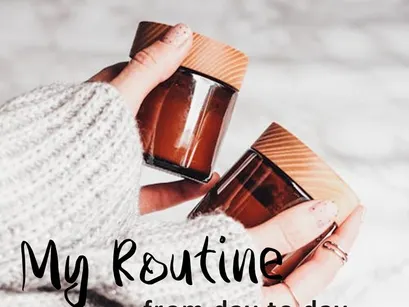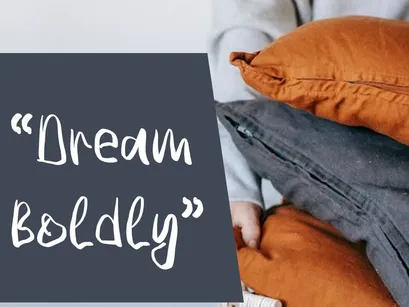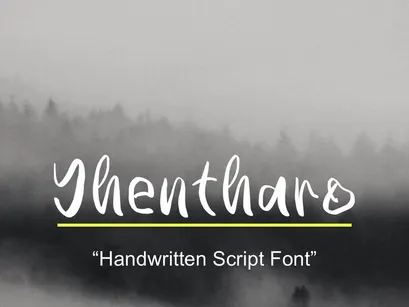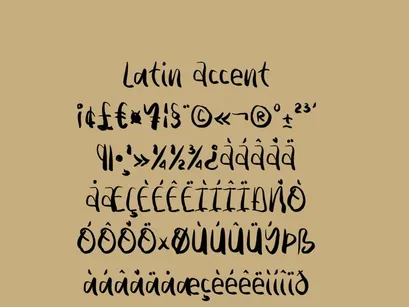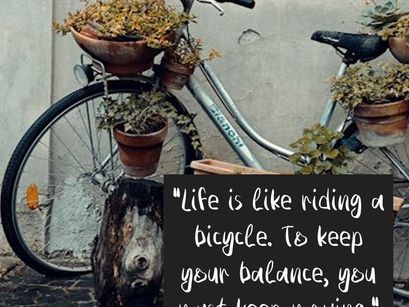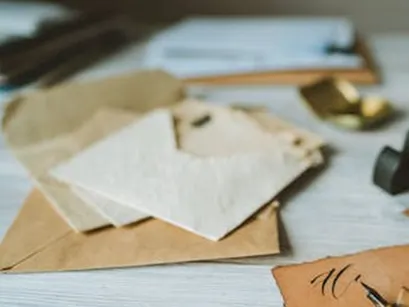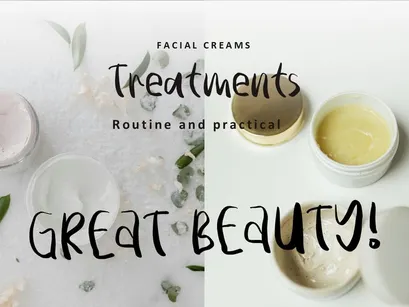
Yhentharo — Handwritten Font
Yhentharo is a modern handwritten font with expressive and natural strokes.
Designed for titles, inspirational quotes, and creative projects that aim to convey emotion and authenticity.
• Full coverage of Latin characters and accents.
Perfect for planners, handcrafted branding, covers, and digital content.